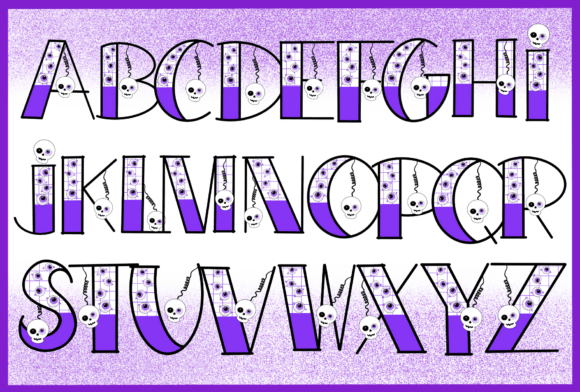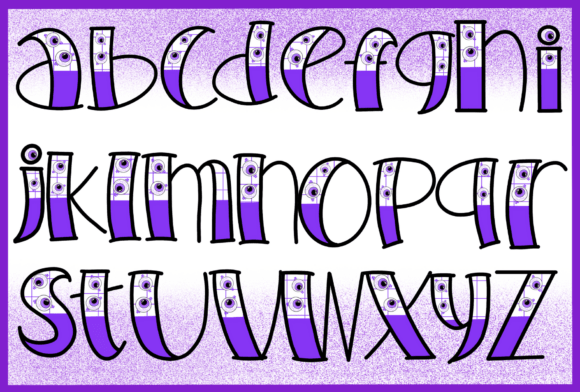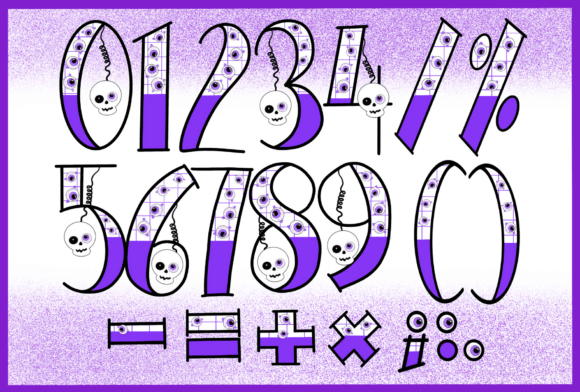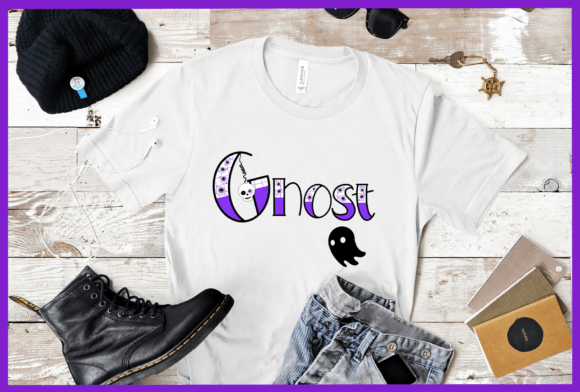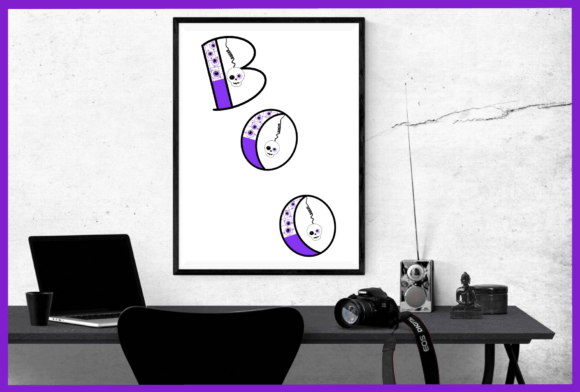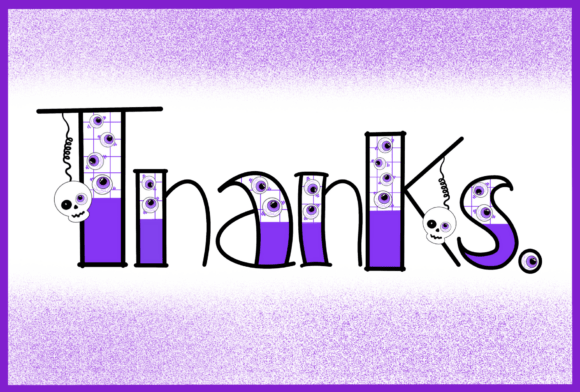
Unleash the Spooky Charm with Ghostdeath Font: A Quirky Take on Gothic Typography
Are you looking for a font that combines the eerie undertones of gothic typography with a playful, cartoonish flair? Look no further than the Ghostdeath Font. This spooky and playful font is perfect for Halloween or horror-themed designs, offering a unique blend of creepy charm and cuteness that’s sure to captivate your audience.
The Unique Design of Ghostdeath Font
The Ghostdeath Font features bold black outlines that are filled with a grid of wide-eyed sockets and dangling skulls, giving it a distinctive and eye-catching appearance. The font’s design is both creepy and charming, making it ideal for designers and crafters who want to add a touch of spookiness to their projects. The bold black outlines provide a striking contrast to the vibrant purple lower half of the font, creating a visually appealing combination that’s sure to grab attention.
A Quirky Take on Gothic Typography
Ghostdeath Font offers a quirky take on gothic typography, merging traditional gothic elements with a playful, cartoonish twist. The font’s characters are personality-packed, with a unique blend of cuteness and eerie undertones that’s sure to set your designs apart. Whether you’re creating Halloween-themed decorations, horror-inspired artwork, or simply want to add a touch of spookiness to your designs, Ghostdeath Font is the perfect choice.
Ideal for Halloween and Horror-Themed Designs
As mentioned earlier, Ghostdeath Font is ideal for Halloween or horror-themed designs. The font’s spooky and playful design makes it perfect for creating eye-catching decorations, invitations, and other materials for Halloween parties or events. Additionally, the font’s creepy charm and eerie undertones make it well-suited for horror-themed artwork, such as movie posters, book covers, or video game designs.
Key Features of Ghostdeath Font
- Bold Black Outlines: The font’s bold black outlines provide a striking contrast to the vibrant purple lower half, creating a visually appealing combination.
- Wide-Eyed Sockets and Dangling Skulls: The font’s design features a grid of wide-eyed sockets and dangling skulls, giving it a distinctive and eye-catching appearance.
- Purple Lower Half: The vibrant purple lower half of the font adds a touch of playfulness and whimsy, balancing out the creepy charm of the design.
- Personality-Packed Characters: The font’s characters are personality-packed, with a unique blend of cuteness and eerie undertones that’s sure to set your designs apart.
Tips for Using Ghostdeath Font
Here are a few tips for using Ghostdeath Font in your designs:
- Use it for Headlines: Ghostdeath Font is perfect for headlines and titles, where its bold and eye-catching design can really make an impact.
- Pair it with Other Fonts: Consider pairing Ghostdeath Font with other fonts to create a unique and visually appealing combination.
- Experiment with Colors: Don’t be afraid to experiment with different colors and textures to really make the font pop.
In conclusion, Ghostdeath Font is a unique and eye-catching font that’s perfect for designers and crafters who want to add a touch of spookiness to their projects. Its bold black outlines, wide-eyed sockets, and dangling skulls create a distinctive and creepy charm that’s sure to captivate your audience. With its quirky take on gothic typography and personality-packed characters, Ghostdeath Font is ideal for Halloween or horror-themed designs. So why not give it a try and unleash the spooky charm in your designs?